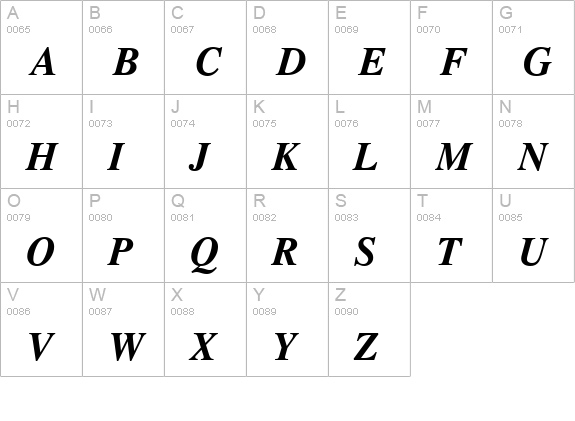
Times CG ATT Bold Italic Font Details
Times CG ATT Bold Italic is a strong, high-contrast, italic variant in the Times typeface family \xE2\x80\x94 well suited to headlines, attention-grabbing titles, and strong calls-to-action.
Introducing Times CG ATT Bold Italic, a powerful and elegant font that combines the classic charm of the Times New Roman with a contemporary twist. This font boasts a bold and dynamic presence with its strong lines and sleek curves, making it perfect for capturing attention and adding a touch of sophistication to any design project. Designed for those who dare to stand out, Times CG ATT Bold Italic exudes confidence and style. Its italicized form adds a sense of fluidity and movement, making it ideal for conveying a sense of energy and excitement. Whether used in headlines, titles, or body text, this font brings a sense of authority and impact to any piece of work. But what sets Times CG ATT Bold Italic apart is its accessibility. In a world where premium fonts can come with a hefty price tag, Times CG ATT Bold Italic breaks the mold by being freely available to download at FontsMarket.com. This means that designers, creatives, and enthusiasts alike can enjoy the benefits of this awe-inspiring font without any financial constraints. With its easy-to-read characters and impeccable legibility, Times CG ATT Bold Italic ensures that your message is communicated clearly and effectively. Its versatility allows it to seamlessly fit into a wide range of design projects, from print materials such as brochures and posters to digital platforms such as websites and social media graphics. So, why settle for the ordinary when you can elevate your designs with the extraordinary? Download Times CG ATT Bold Italic today from FontsMarket.com and discover the freedom to create stunning visuals that leave a lasting impression. Let this font become your go-to tool for expressing your creativity and making a statement that captivates and inspires.